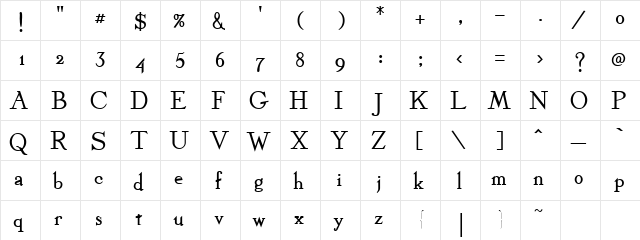
Pandora's Box 3 Bold
Design Context for Pandora's Box 3 Typeface
Pandora's Box 3 is a composed and adaptable typeface that performs quietly and consistently across a wide range of design contexts. Its bold stroke weight gives it real presence on the page.